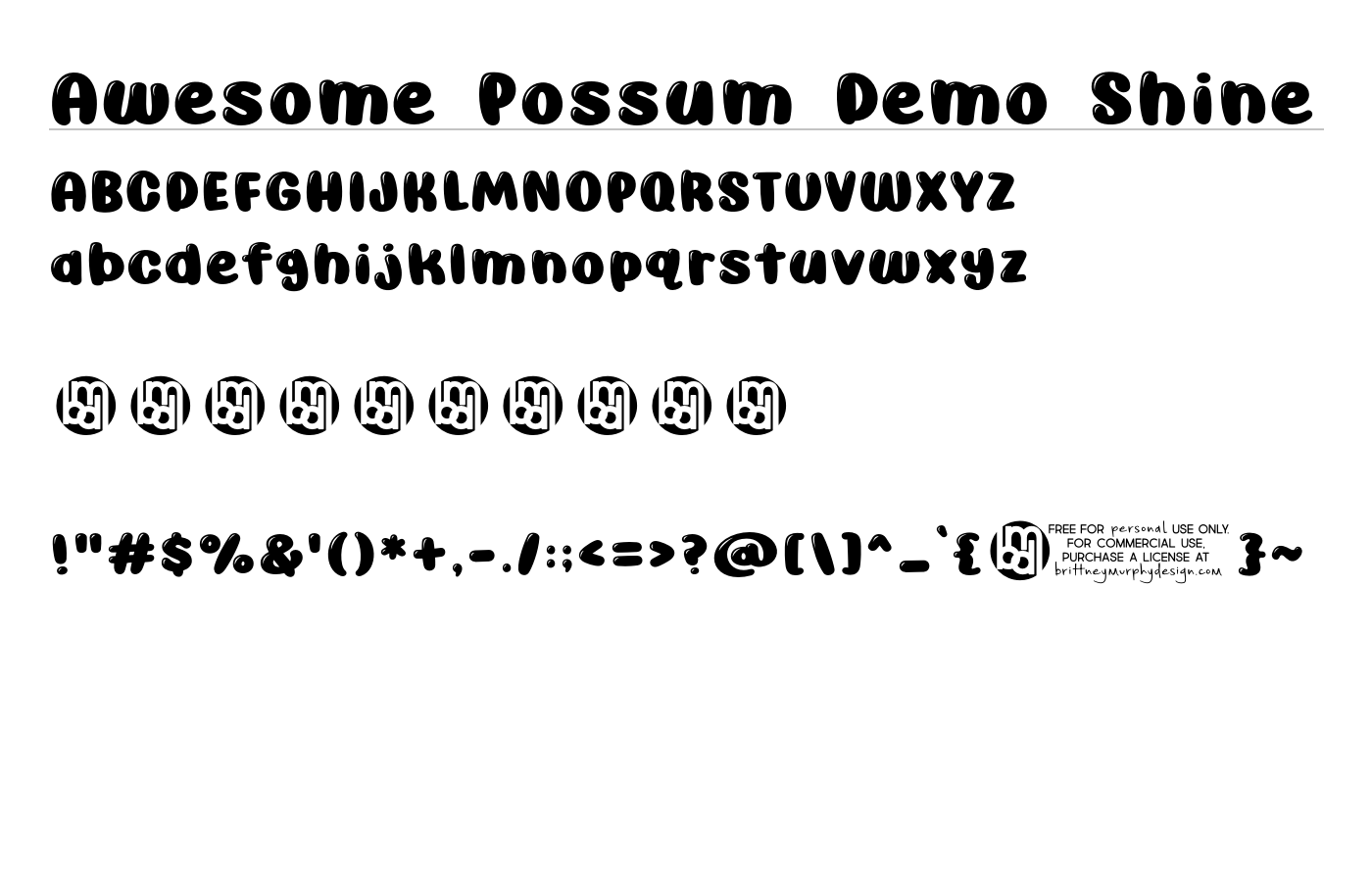
Awesome Possum Demo is a bold, playful sans serif font with rounded edges and a soft, friendly appearance. Its chunky letterforms and high x-height make it highly legible and perfect for projects that need a casual, fun vibe. This font works especially well for children’s designs, informal branding, and eye-catching headlines where a warm, approachable tone is desired.
Awesome Possum Demo Font
About Awesome Possum Demo Font
| Font family | Awesome Possum Demo Font |
| Designer | Brittney Murphy |